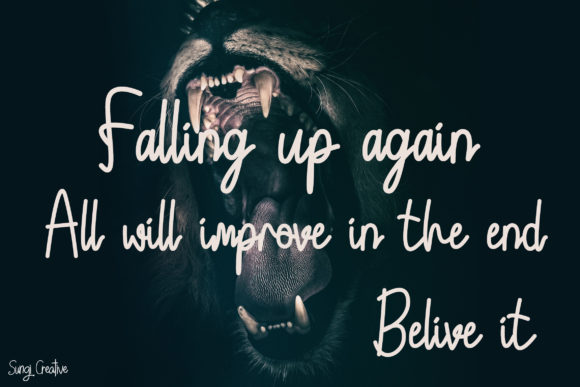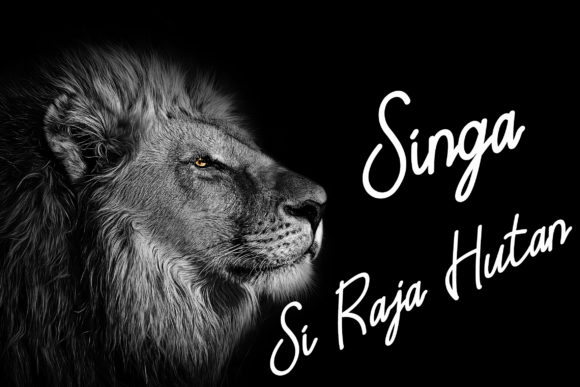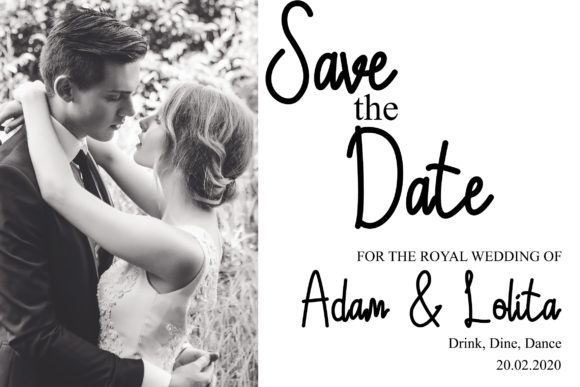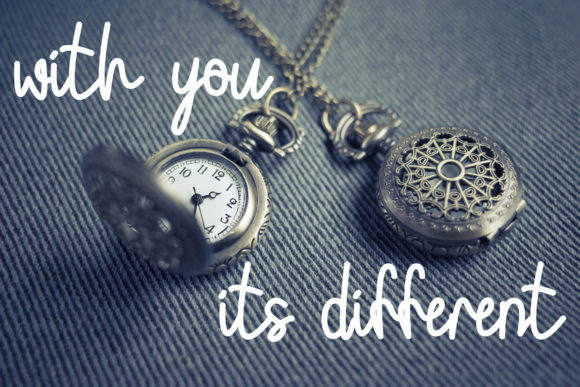
Leontine Font
About Leontine Font
Leontine is a mono line handwritten script. It is perfect for illustrations, posters, logos, book covers and much more!
Include this font in your next project and give it a stylish look.